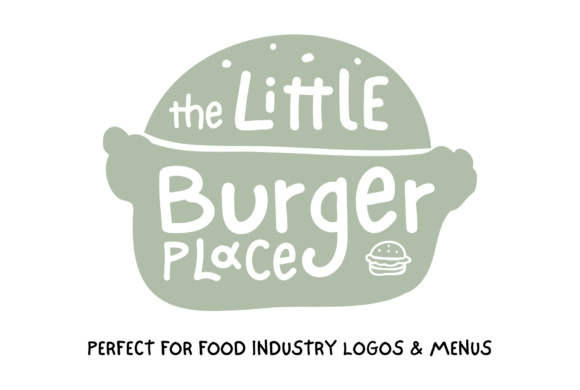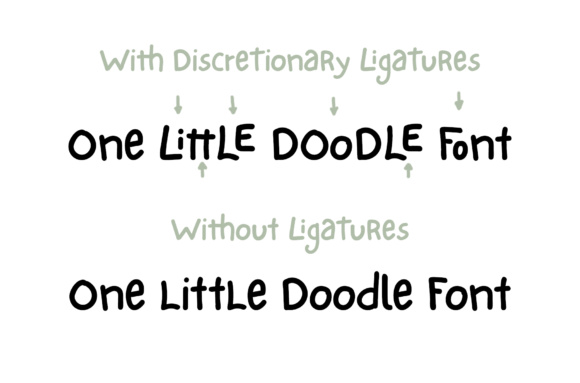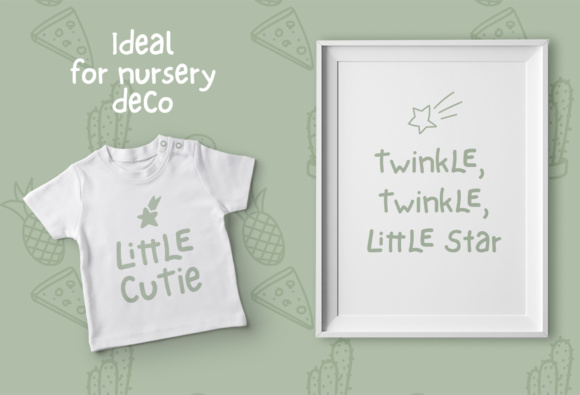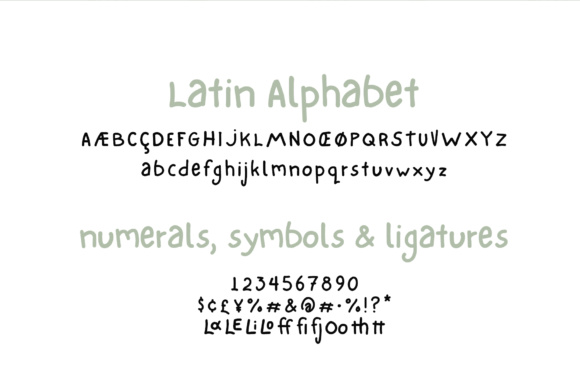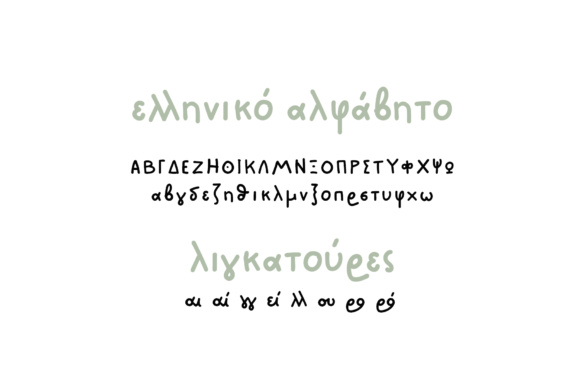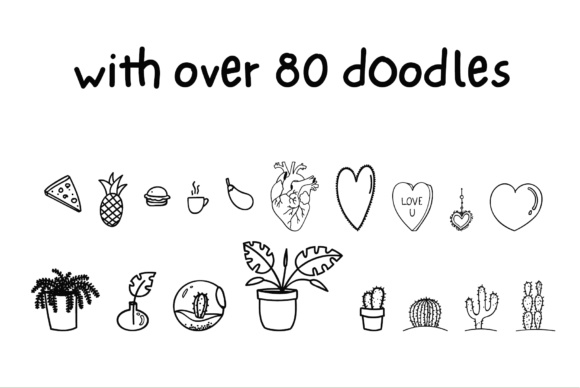
Introduction to One Little Font Font
Fonts play a crucial role in design, and the One Little Font font is a typeface that brings both character and versatility to any project. Whether you’re working on a branding project, a website, or a print design, the One Little Font font offers a unique style that can elevate your work.
One Little Font is an adorable hand-made typeface with a lot of personality.
With its double letter ligatures and stylistic alternates, One Little Font can be a mighty companion to your next graphic design project From βhand-writtenβ quotes to product packaging, merchandise, and branding projects, One Little Font is so versatile that it can cover them all.
Key Features of One Little Font Font
Why Choose One Little Font Font?
The One Little Font font is more than just a typeface β it’s a design tool that helps you communicate your message with style and clarity. Its unique character set and versatile design make it suitable for a wide range of applications, from elegant invitations to bold headlines.
With its carefully crafted letterforms and balanced proportions, the One Little Font font ensures readability and visual appeal across all mediums.
What makes One Little Font font special?
The One Little Font font stands out with its unique design, exceptional readability, and versatility across various design applications.